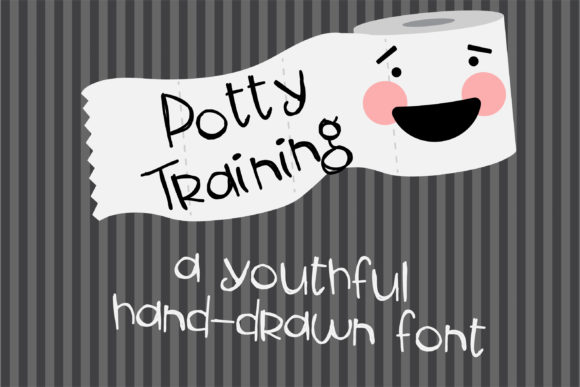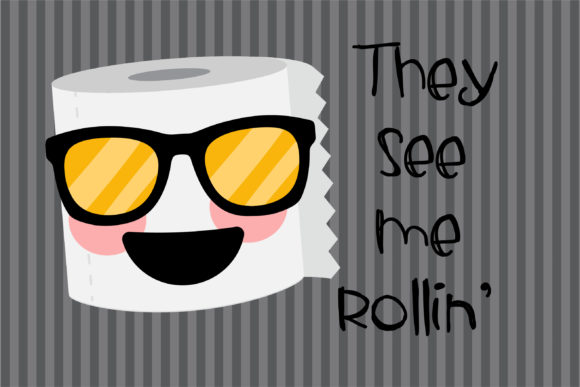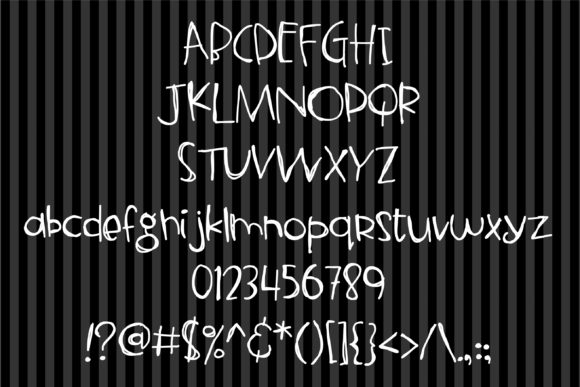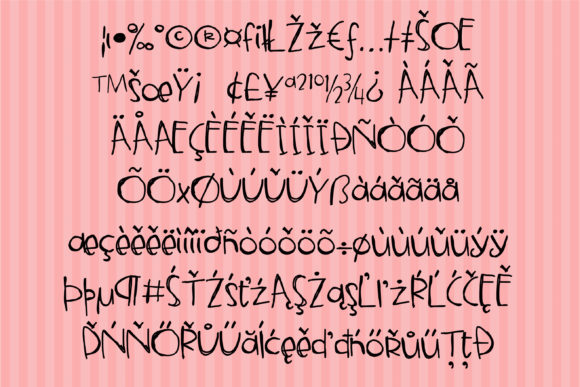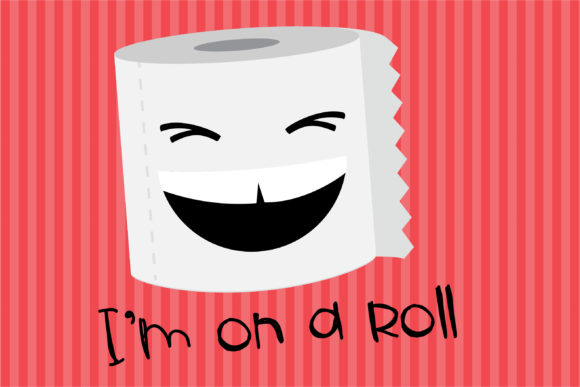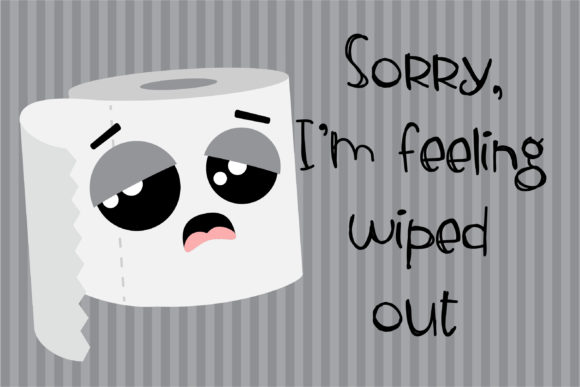
Potty Training Font
About Potty Training Font
Potty Training is a simple, fun and quirky handwritten font. Get creative with its childlike playfulness, and use it to brighten up any kids and school project!